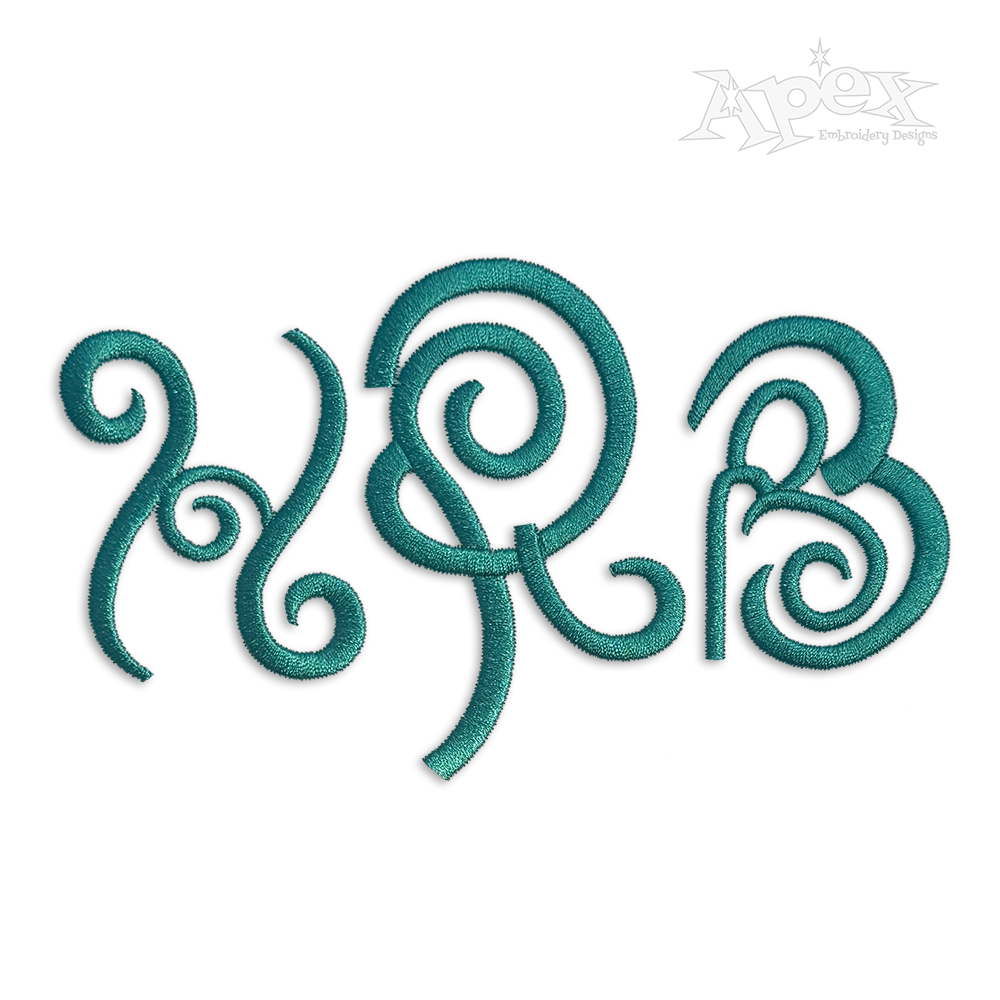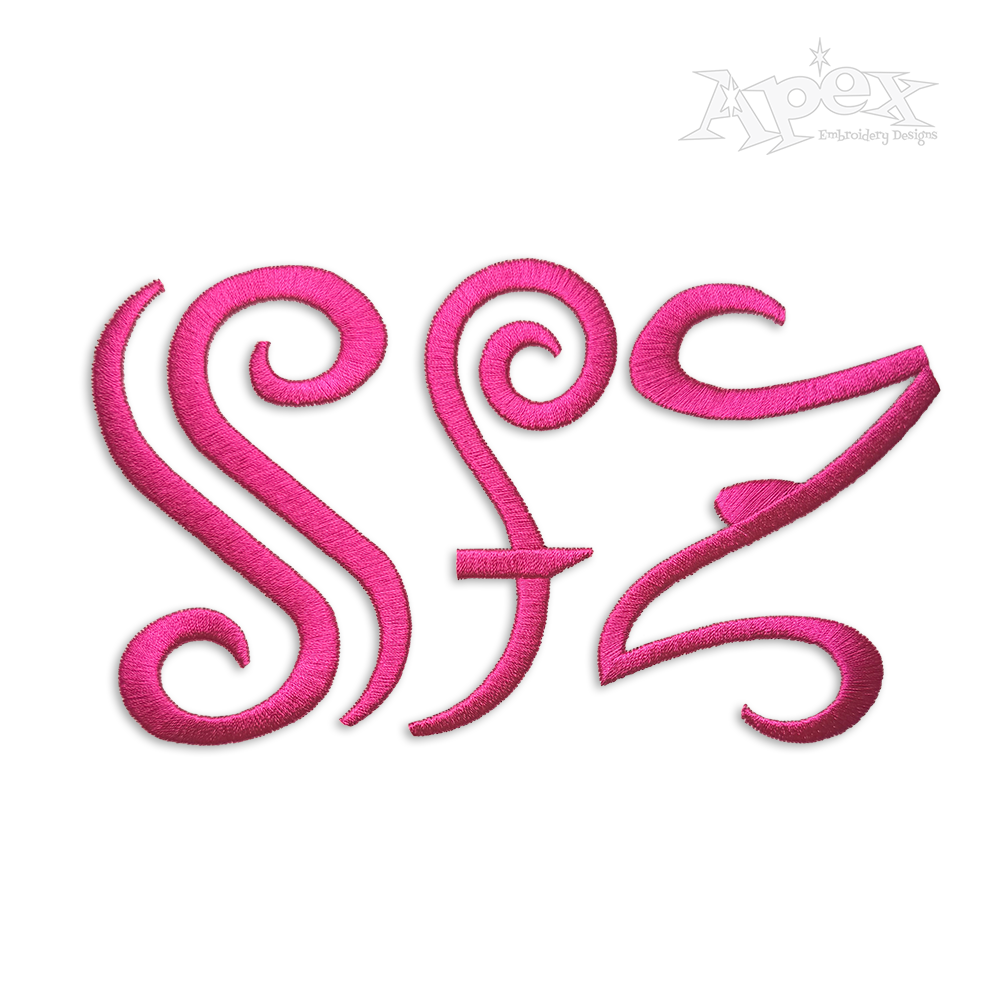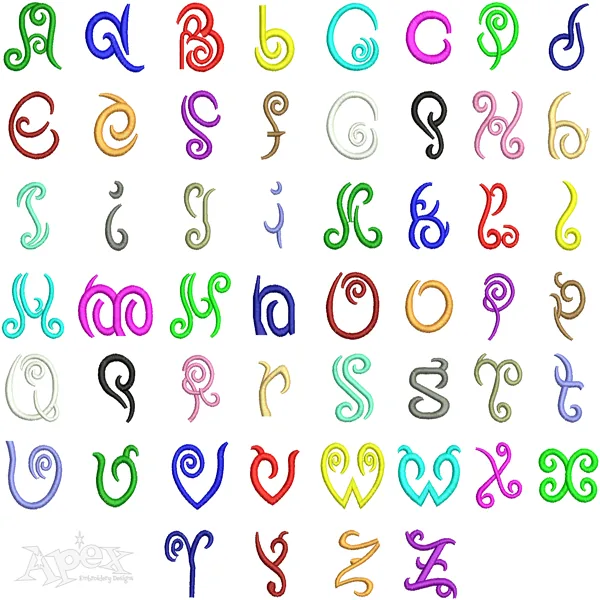
Ocean Waves Embroidery Font
There is an effortless, rhythmic beauty in the way ocean swells pull and crest across the shoreline, and it was this tidal cadence that inspired the creation of the Ocean Waves Embroidery Font. As digitizers, we sought to capture that liquid motion in thread—transforming crisp linen and supple cotton into canvases kissed by coastal breezes. Every letterform rolls with organic grace, balancing the structured clarity required for elegant readability with the free-spirited romance of breaking surf. Whether adorning high-summer resort wear or personalized seaside keepsakes, this satin stitch alphabet brings an unmistakable sense of maritime luxury to your embroidery machine.
Project Ideas for Ocean Waves
- Bespoke Resort Wear: Monogram breezy linen button-downs, tunic cover-ups, and sun hats for destination weddings, beach retreats, or yacht club weekends.
- Coastal Table Linens & Cocktail Napkins: Stitch seaside initials onto natural flax or crisp hemstitched cocktail napkins to elevate summer soirees and coastal dinner tables.
- Nautical Canvas Totes & Boat Bags: Pair the prominent 3.5-inch capitals with heavy-weight canvas for timeless, durable weekender duffels and beach carryalls.
- Heirloom Bedding & Bath Linens: Accent white percale pillow shams, waffle-weave bath sheets, and guest room duvet covers with serene, ocean-inspired personalization.
- Personalized Gifting: Create treasured keepsakes for seaside bachelorette trips, coastal housewarmings, and bridal party gatherings on silky robes and tote bags.
- Corner Diagonal Placements: Angle a 1.5-inch or 2.5-inch monogram 1.5 to 2 inches from the corner of hemstitched napkins and decorative throws for balanced, flowing drape.
- Center Chest & Pocket Framing: Position the 1.5-inch or 2.5-inch letters centered above a shirt pocket or across the left chest of polos and swim shirts for a tailored nautical insignia.
- Cuff & Hem Accents: Utilize the petite 1.5-inch glyphs on the edge of a sleeve cuff, towel hem band, or sun hat brim for understated coastal sophistication.
- Centered Focal Placements: Showcase the sweeping 3.5-inch letters prominently in the center of throw pillows, beach bags, or duvet covers, allowing the rolling wave strokes to command the eye.
Ocean Waves Craft & Letterform Details
The hallmark of the Ocean Waves Embroidery Font lies in its nuanced satin stitch architecture. Rather than relying on rigid, geometric curves, each glyph is crafted with fluid, variable-width satin columns that echo the cresting and breaking of ocean surf. Stitch angles are meticulously mapped to follow the natural curvature of the letterforms, ensuring the light plays across the threads with the same shimmering luminescence as sunlight skipping across open water.
Carefully balanced underlay stitching anchors the foundations, providing structural stability that prevents pulling or puckering on both crisp linen and textured knits. The gentle tapers and fluid terminals deliver exceptionally smooth stitch transitions and crisp line definition. It is this harmony of maritime inspiration and precision digitizing that makes Ocean Waves an indispensable asset for your coastal and heirloom monogramming collection.